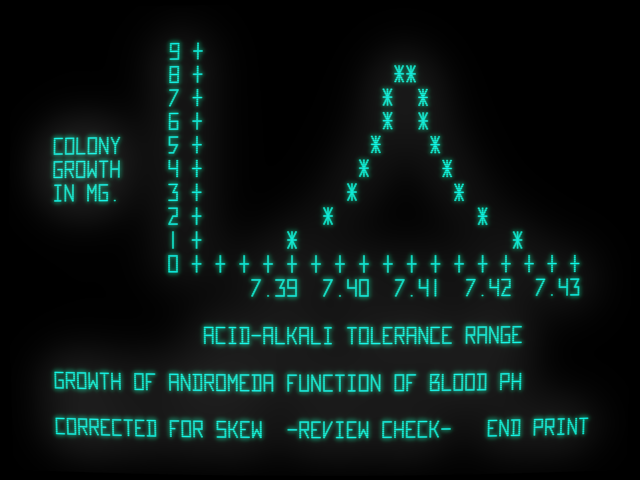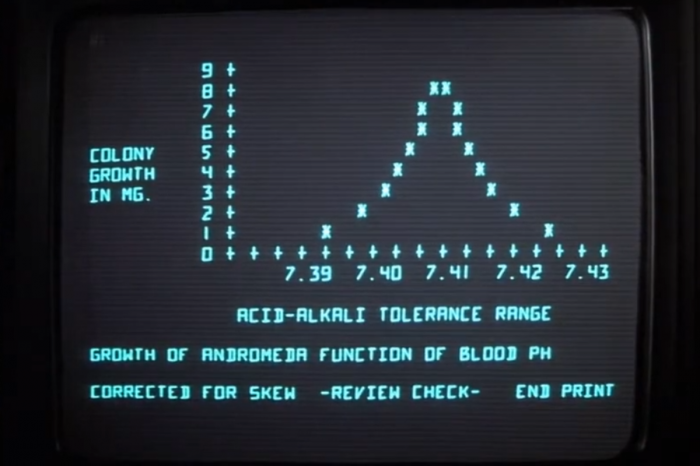
@V. Sarela (Yautja) - Excellent work here. This design would have fit in perfectly with the vector-based video games of the late '70s/early '80s: Asteroids, Star Castle, Omega Race, Battlezone, Atari's Star Wars... Congratulations! :^)
This is by far the best and most comprehensive vector graphics display font I have ever seen. I realistically think that I could have seen something almost identical to this font in real vector systems like anything on the Atari Vectrex.
@V. Sarela (Yautja) - Excellent work here. This design would have fit in perfectly with the vector-based video games of the late '70s/early '80s: Asteroids, Star Castle, Omega Race, Battlezone, Atari's Star Wars... Congratulations! :^)
A lovely minimal design!
I wonder if the screen in the samples is a vector based display?
@JeycoMonge it's some computer terminal from the movie mentioned in the description.
This is by far the best and most comprehensive vector graphics display font I have ever seen. I realistically think that I could have seen something almost identical to this font in real vector systems like anything on the Atari Vectrex.